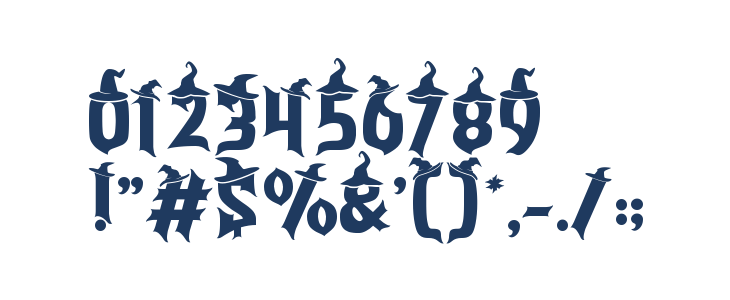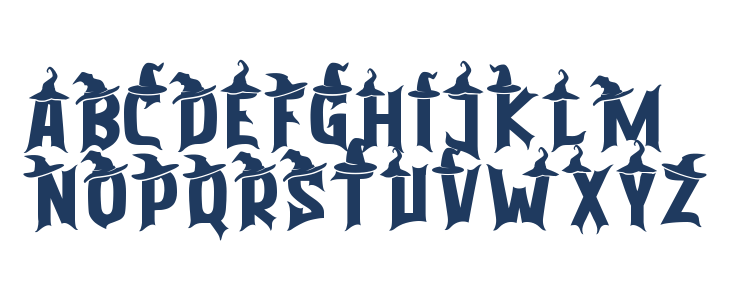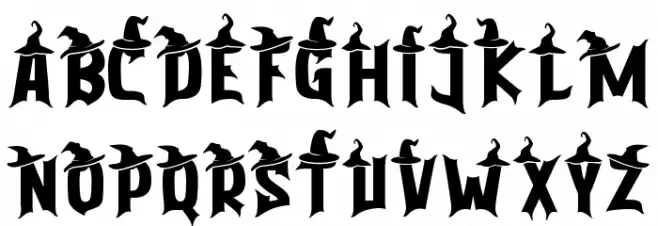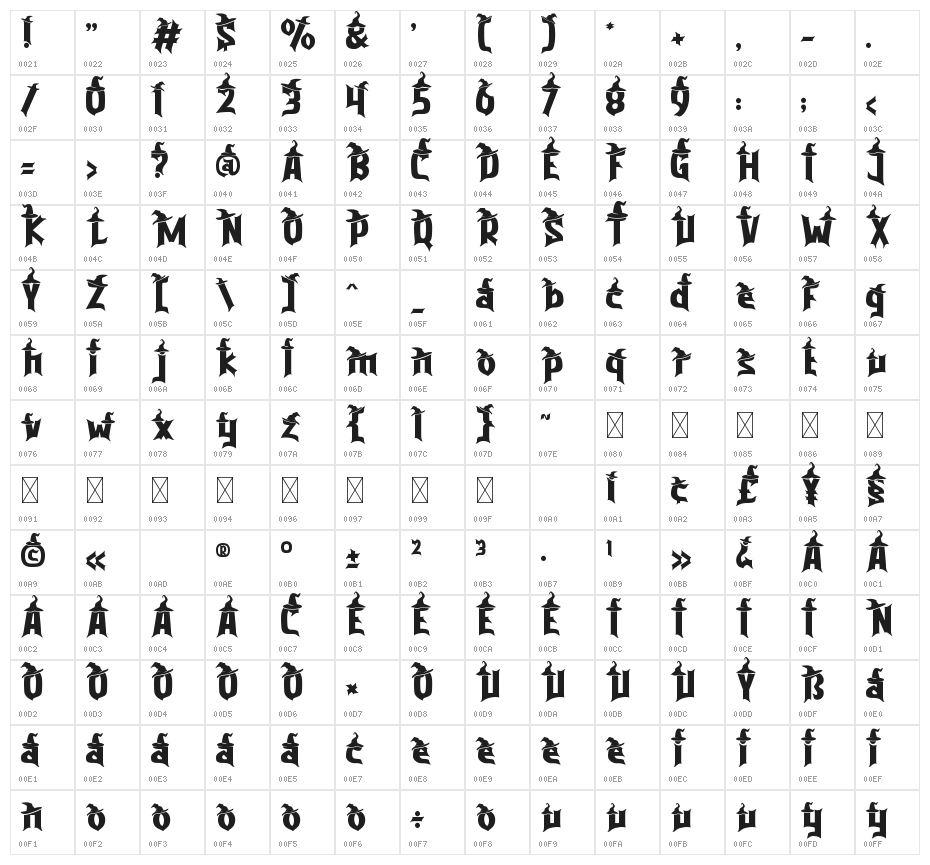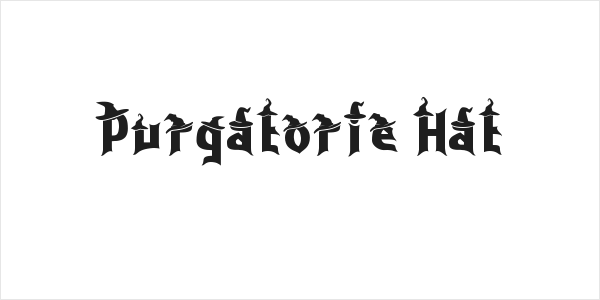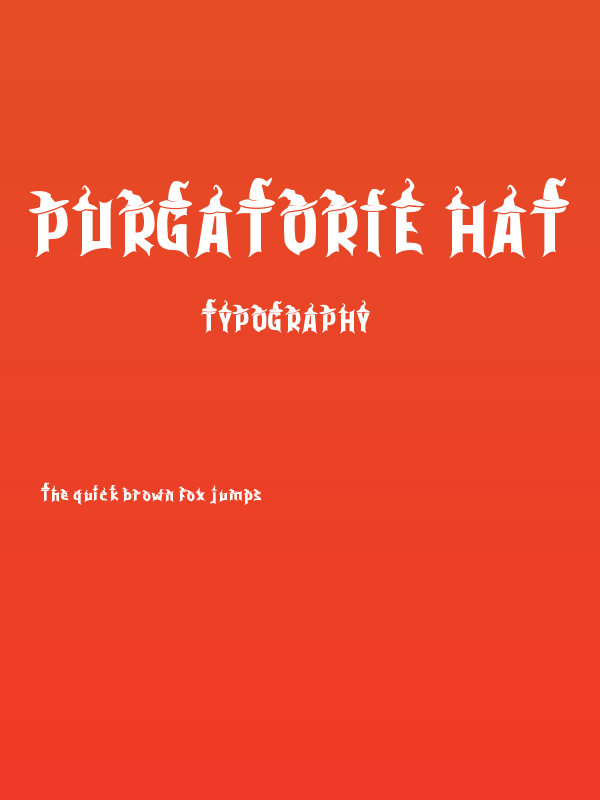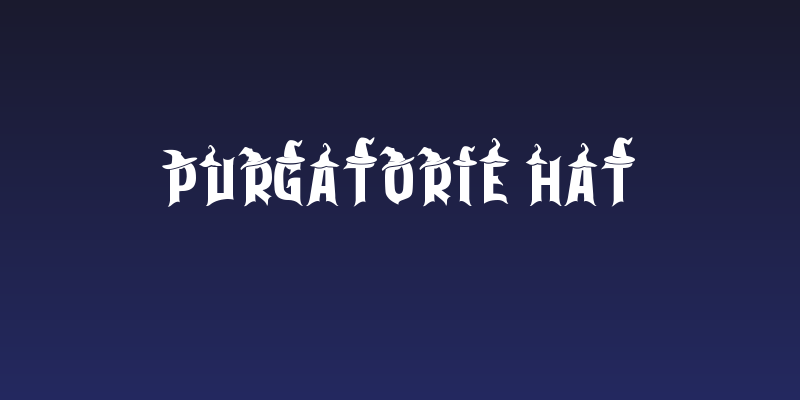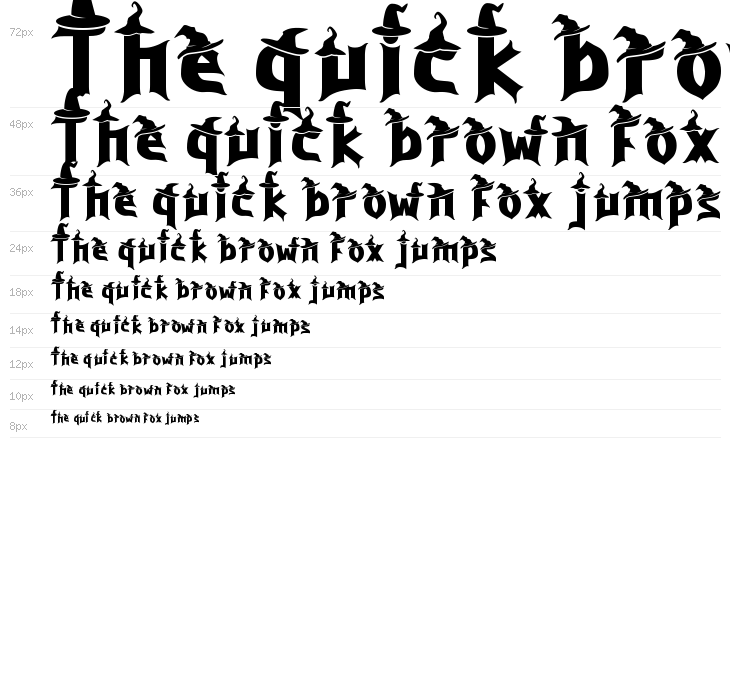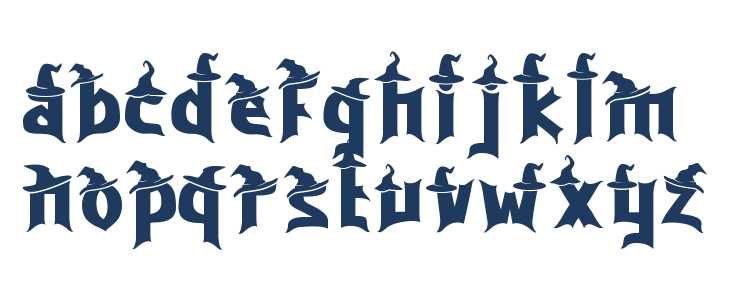
Purgatorie Hat Font
Purgatorie Hat Description
A decorative blackletter-inspired font with bold, angular strokes and unique witch hat motifs atop each character, creating a whimsical and gothic appearance. The characters are tightly spaced, with high contrast between thick and thin strokes, and feature sharp serifs and dramatic vertical emphasis.
| Overall Style | Decorative, Gothic, Whimsical |
| Use Case | Headlines, Logos, Posters, Themed Graphics |
| Proposed Projects | Halloween posters, spooky event invitations, themed branding, fantasy book covers, decorative signage. |